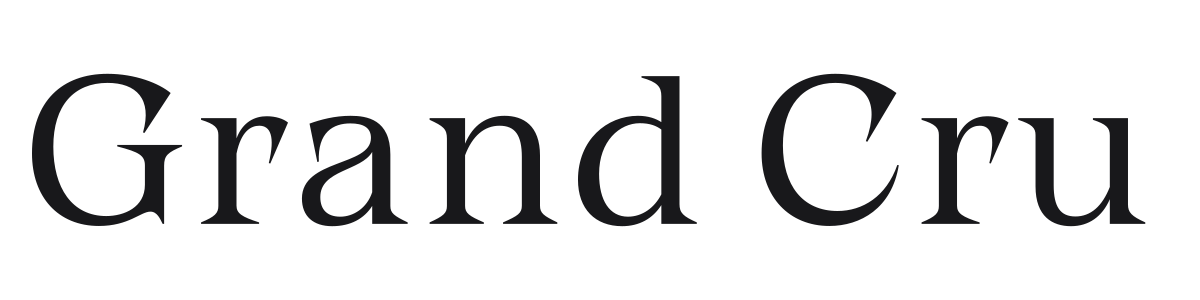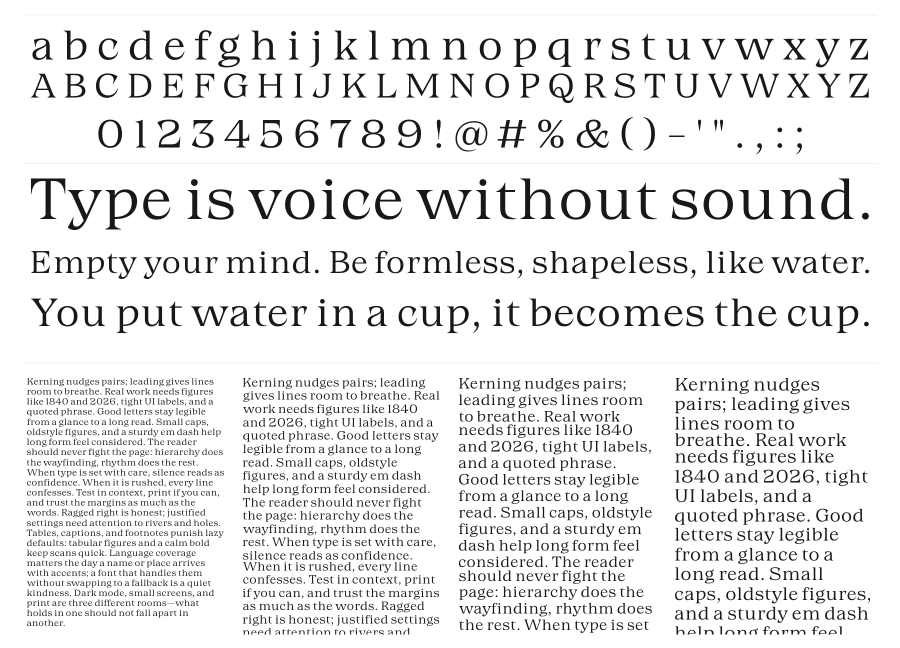
Grand Cru
Grand Cru is a contemporary transitional serif by Emil Bertell, built around a sophisticated balance of stroke contrast and classical proportion. Part of a larger family divided by contrast levels, this cut occupies the middle ground — composed enough for sustained reading, distinctive enough for editorial display. The bracketed serifs and open apertures keep it grounded and legible without sacrificing elegance.